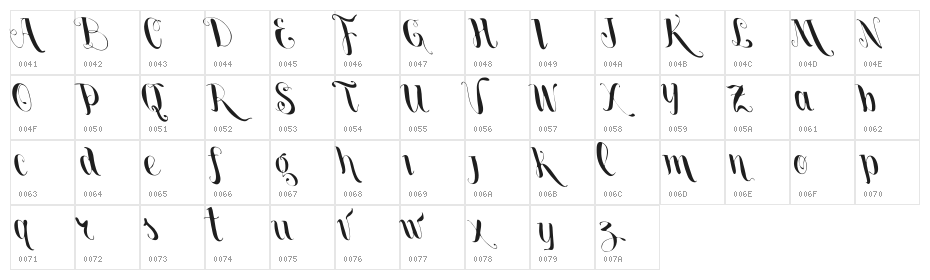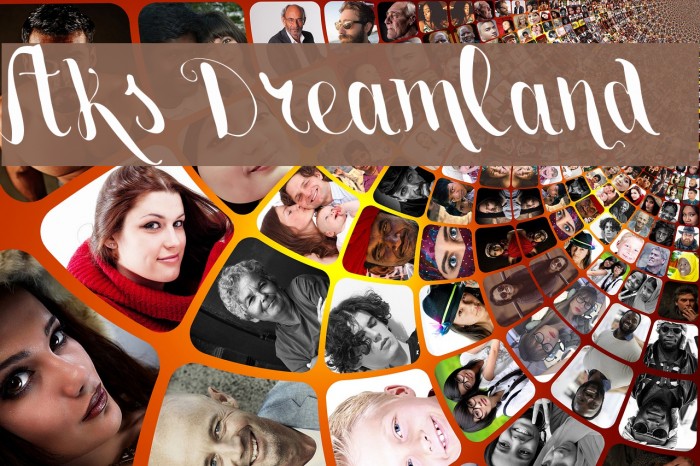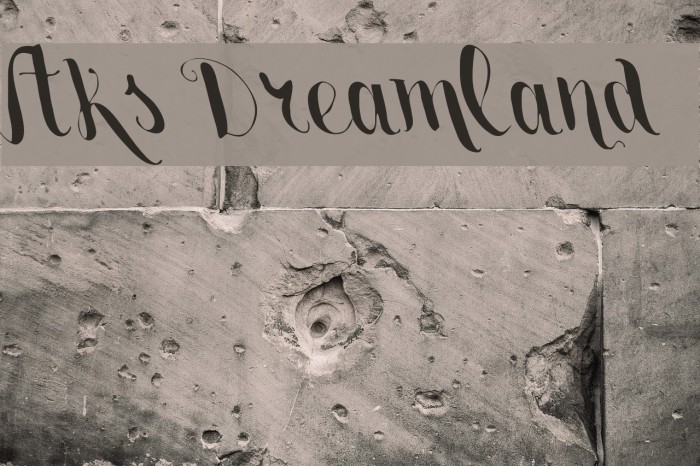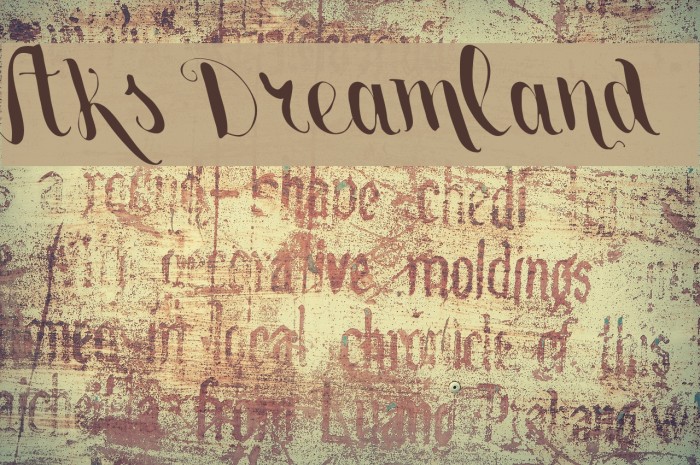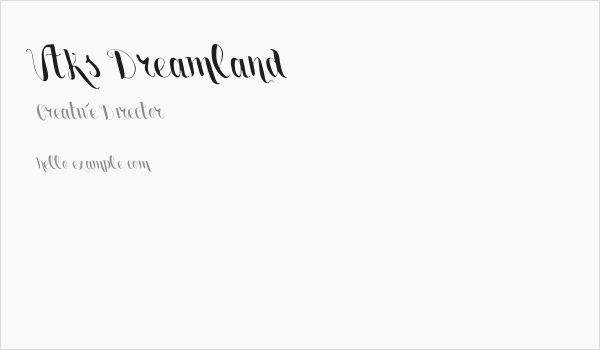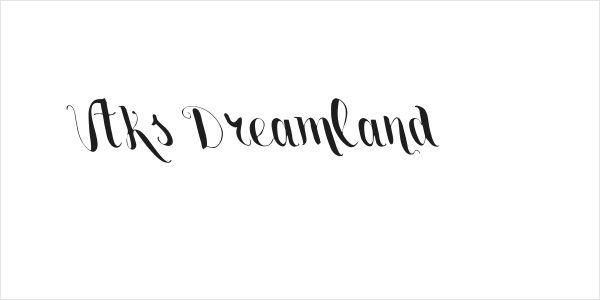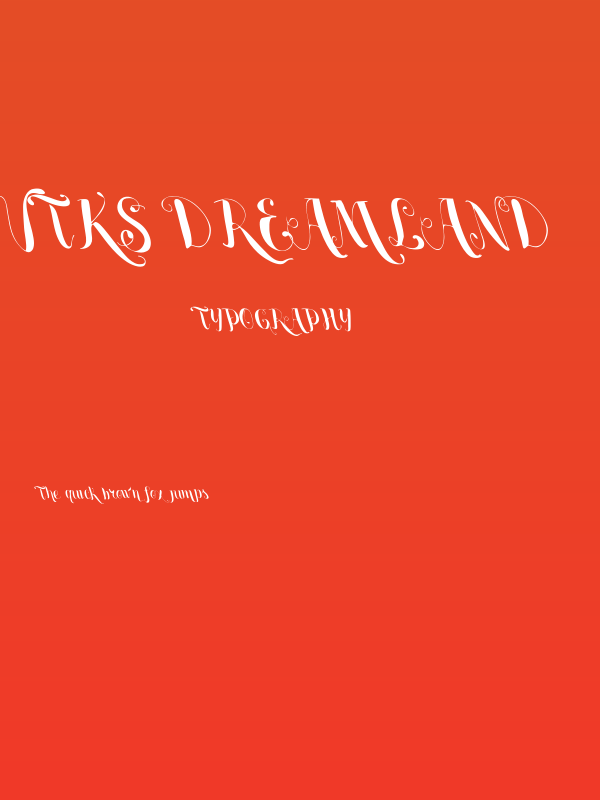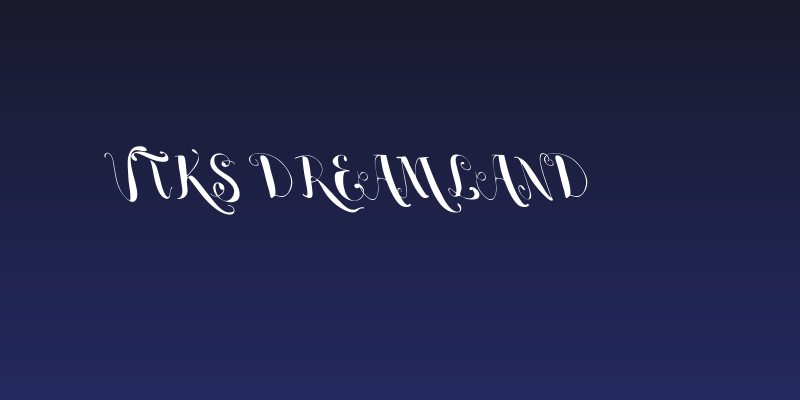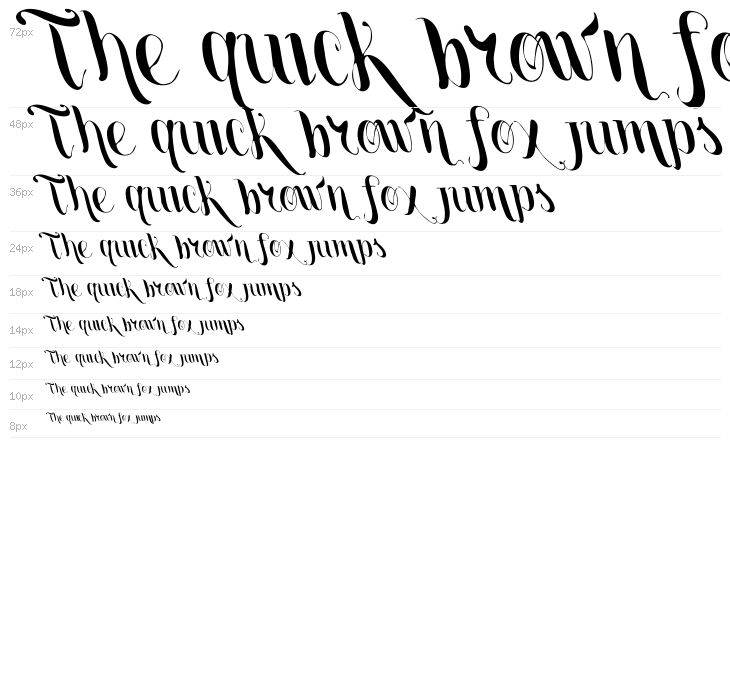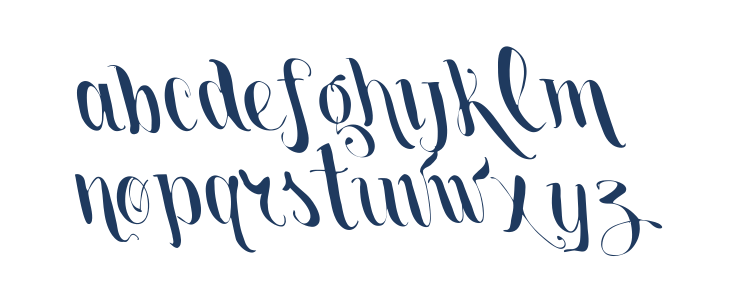
Vtks Dreamland555 Font
Vtks Dreamland555 Description
This font features an elegant and flowing script style, characterized by its decorative swirls and flourishes. The letters are connected in a cursive manner, giving it a handwritten appearance. The uppercase letters are particularly ornate, with elaborate loops and curves that add a sense of sophistication and artistry. The lowercase letters maintain a consistent style, complementing the uppercase with their own subtle embellishments. This font exudes a sense of creativity and elegance, making it suitable for projects that require a touch of class and personality.
| Proposed Projects | Ideal for wedding invitations, greeting cards, branding, and elegant logo designs. |